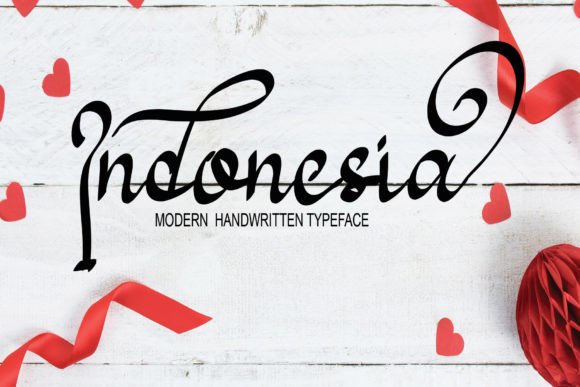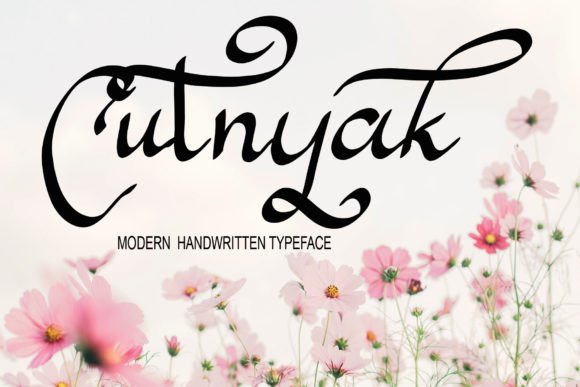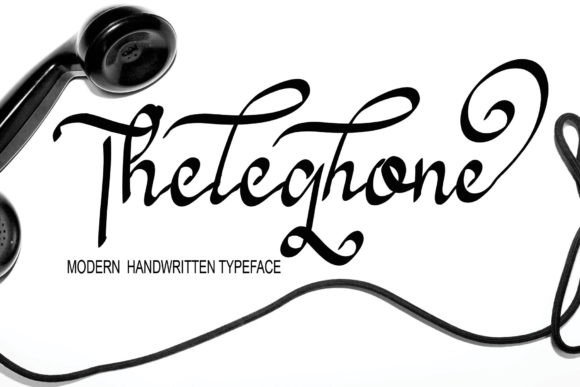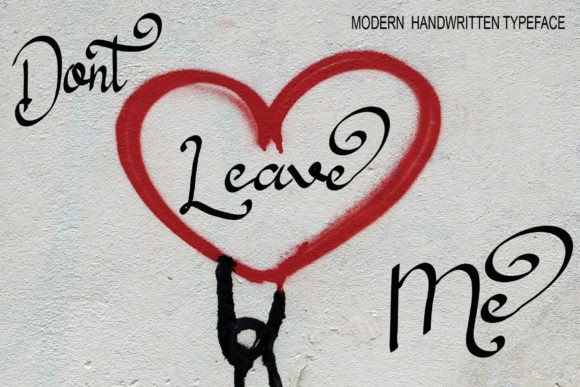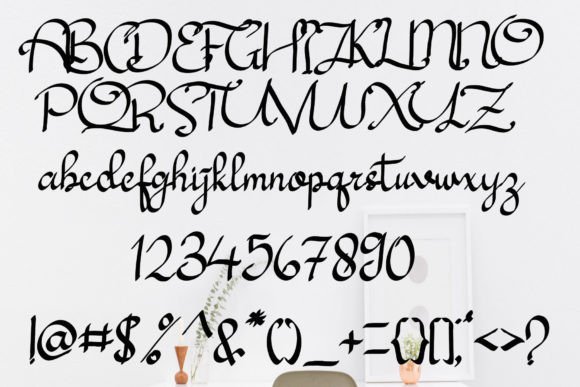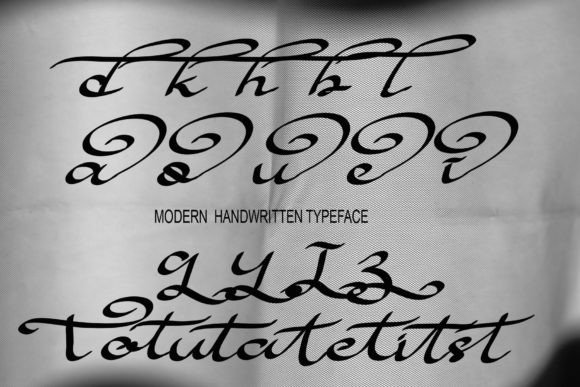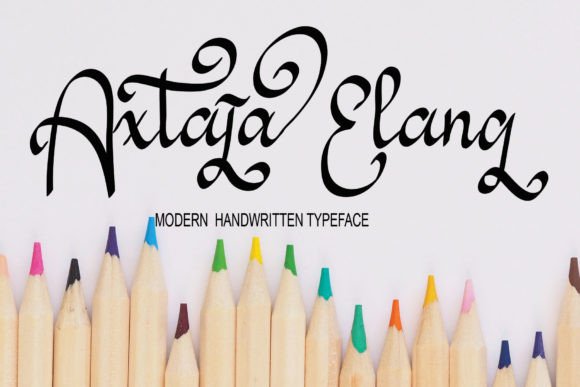
Axtaja Elang Font: Elevate Your Designs with a Modern and Quirky Script Font
Are you tired of using the same old fonts in your designs? Look no further than Axtaja Elang, a modern and stylish script font that’s sure to brighten up your creations. With its unique blend of elegance and quirkiness, Axtaja Elang is the perfect choice for designers and crafters looking to add a touch of personality to their work.
What is Axtaja Elang Font?
Axtaja Elang is a script font that’s been carefully crafted to bring a sense of sophistication and whimsy to your designs. Its modern and stylish aesthetic makes it perfect for a wide range of projects, from wedding invitations and branding materials to social media graphics and more.
One of the standout features of Axtaja Elang is its quirky personality. This font is not your run-of-the-mill script font – it’s a little bit offbeat, with a charm that’s sure to capture the attention of your audience. Whether you’re looking to create a bold statement or add a touch of subtle elegance to your design, Axtaja Elang is the perfect choice.
Key Features of Axtaja Elang Font
So what makes Axtaja Elang so special? Here are just a few of the key features that set this font apart:
- Modern and stylish aesthetic: Axtaja Elang has a sleek and sophisticated look that’s perfect for modern designs.
- Quirky personality: This font has a unique charm that’s sure to add a touch of personality to your work.
- Script font: Axtaja Elang is a script font that’s perfect for creating elegant and flowing text.
- Versatile: This font can be used for a wide range of projects, from print materials to digital graphics.
How to Use Axtaja Elang Font in Your Designs
So how can you use Axtaja Elang in your designs? Here are a few ideas to get you started:
- Wedding invitations: Axtaja Elang is perfect for creating beautiful and elegant wedding invitations that will set the tone for your special day.
- Branding materials: Use Axtaja Elang to create unique and eye-catching branding materials, such as logos, business cards, and letterheads.
- Social media graphics: Add a touch of personality to your social media graphics with Axtaja Elang, perfect for creating engaging and shareable content.
- Digital art: Axtaja Elang can be used to create stunning digital art, such as illustrations and typography.
Tips for Getting the Most Out of Axtaja Elang Font
To get the most out of Axtaja Elang, here are a few tips to keep in mind:
- Experiment with different sizes and colors: Axtaja Elang looks great in a variety of sizes and colors, so don’t be afraid to experiment and find the perfect combination for your design.
- Pair with other fonts: Axtaja Elang can be paired with other fonts to create a unique and eye-catching combination.
- Use it sparingly: Axtaja Elang is a bold and eye-catching font, so use it sparingly to add emphasis and create visual interest.
| Font Name | Axtaja Elang Font |
| Author | Canden Meutuah |
In conclusion, Axtaja Elang is a modern and stylish script font that’s perfect for designers and crafters looking to add a touch of personality to their work. With its quirky personality and versatile aesthetic, Axtaja Elang is sure to brighten up your designs and capture the attention of your audience. So why not give it a try and see the difference it can make?